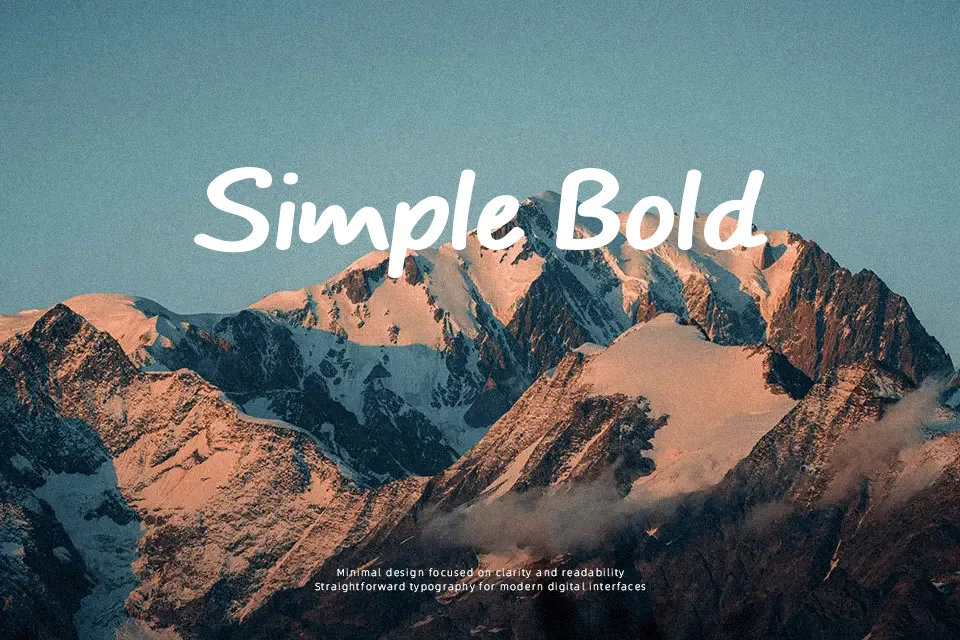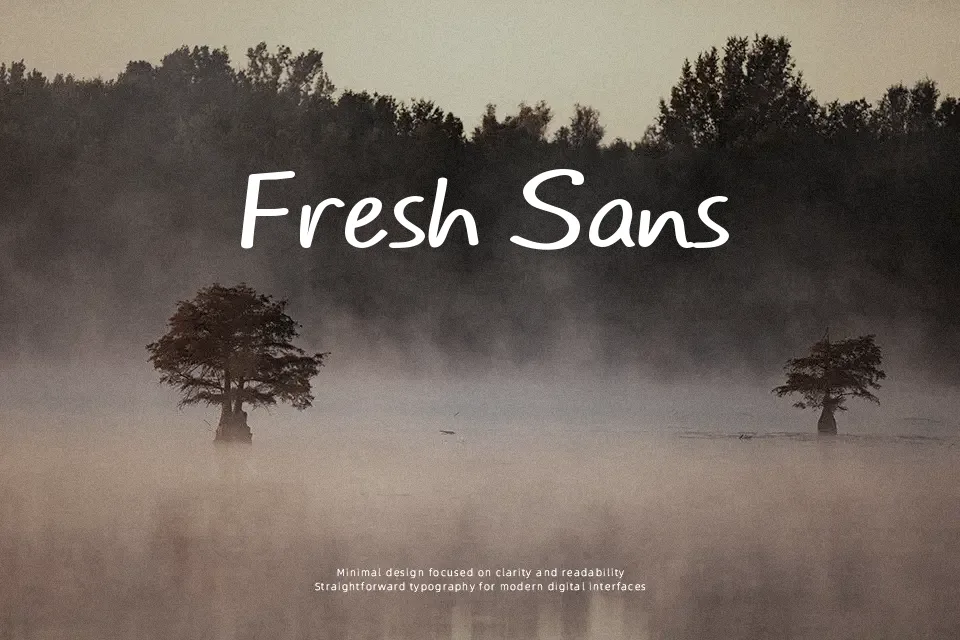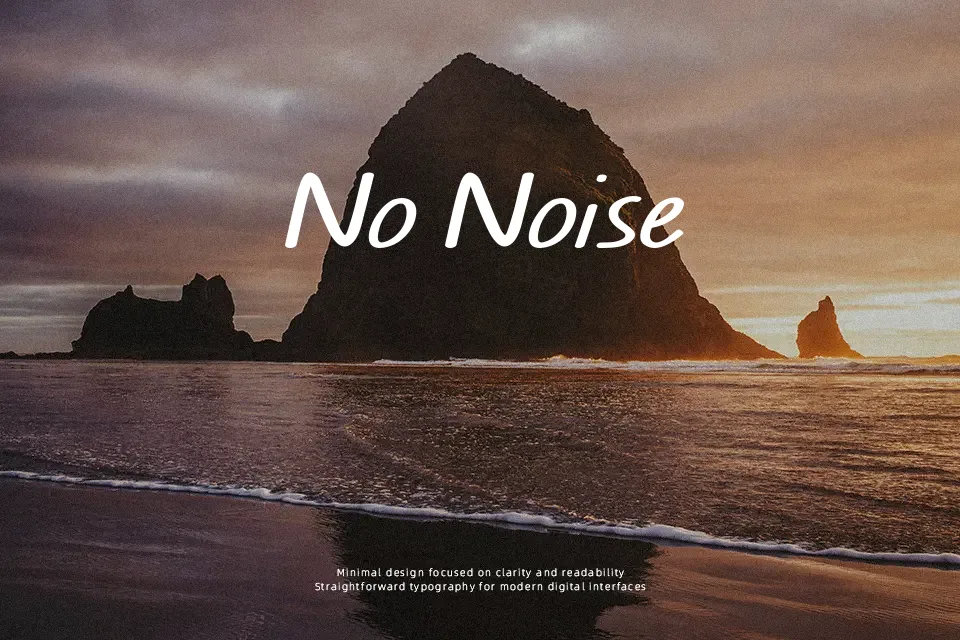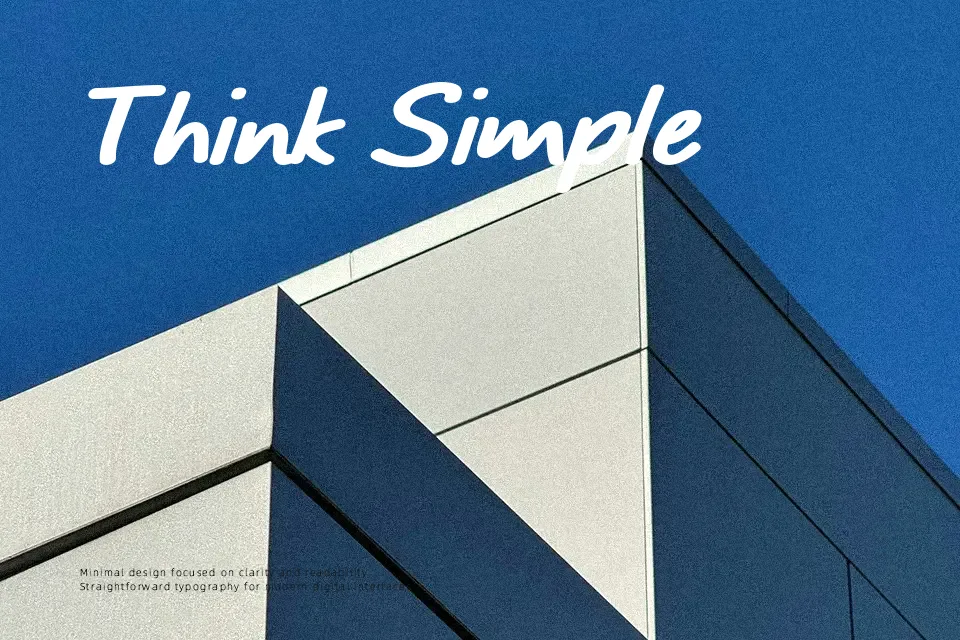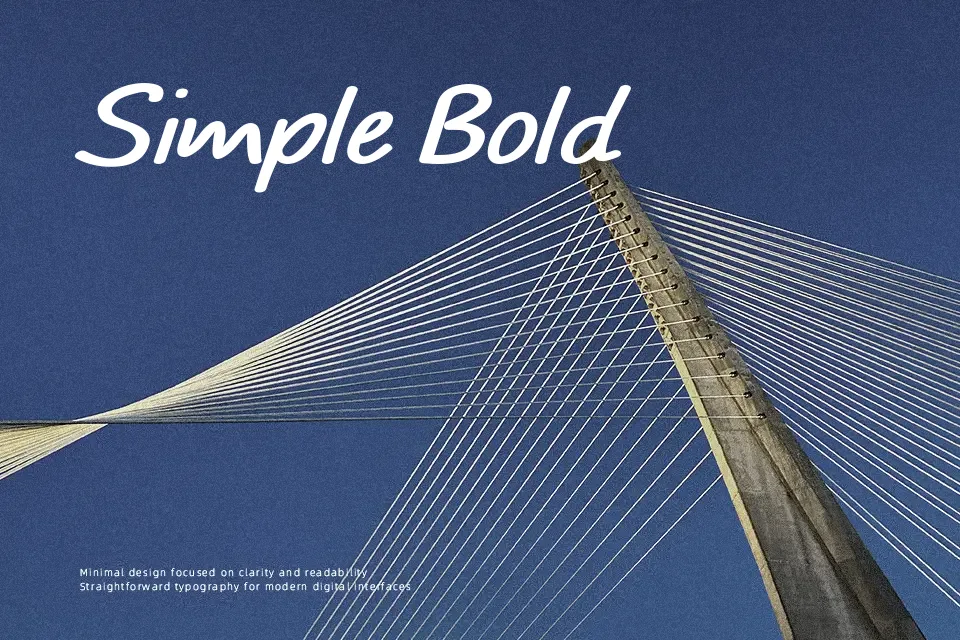
Typo Comics Font
Designed by Studio Typo
Typo Comics Font uses rounded, substantial letterforms with soft curves and a consistent comic display rhythm. Its strokes appear broadly even, while the generous shapes keep uppercase and lowercase text easy to recognize in short words and headlines. The proportions give the design a friendly, informal presence suited to posters, children’s materials, labels, and bold promotional graphics. Spacing works best when the type is given room to breathe at medium and large sizes. The typeface remains clear in display settings, but its pronounced character makes dense paragraphs and small supporting copy less comfortable to read.
Best For: children’s book covers,comic-style poster headlines,playful product packaging,social media graphics